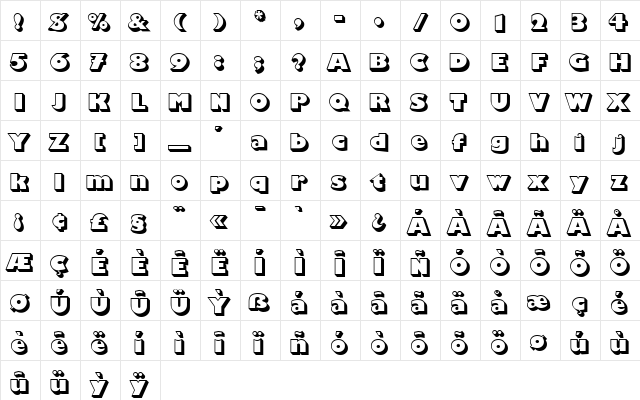
PT Playhouse Shadow Normal
Design Context for PT Playhouse Shadow Typeface
PT Playhouse Shadow is built around its visual character rather than neutral utility — its distinctive forms are designed to make an impression at display sizes.